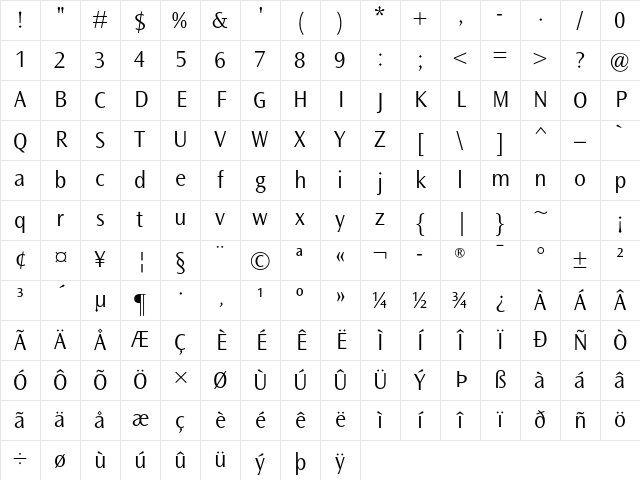
Complete Ocean Sans Std Light glyph index. Displaying only characters natively supported by Ocean Sans Std Light font.
Ocean Sans Std is a composed and adaptable typeface that performs quietly and consistently across a wide range of design contexts. Its slender proportions lend an understated elegance to any composition.